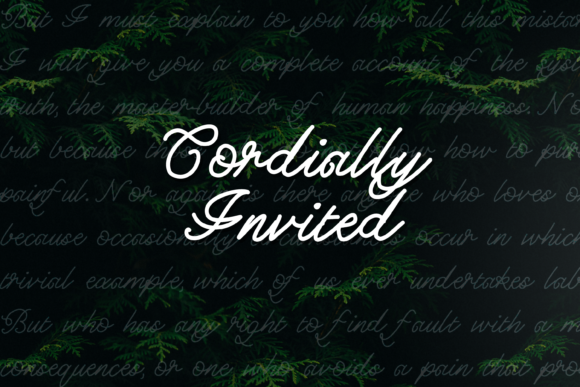
When the Perfect Font is Inviting
As a designer, there’s nothing quite like the thrill of bringing a creative idea to life. Whether it’s a wedding invitation, a birthday card, or a branding campaign, the right font can make all the difference. And sometimes, that perfect font is just a click away. Take, for example, the Cordially Invited Font – an elegant and beautiful handwritten font that’s sure to make your designs stand out.
This versatile font is perfect for a wide range of projects, from formal events to personal expressions. Its unique, handwritten style adds a touch of warmth and personality to any design. For designers, the Cordially Invited Font is a valuable asset, offering a level of sophistication and refinement that’s hard to find in other fonts.
Cordially Invited Font Key Features
- Unique Characteristics: Features elegant, cursive script with a touch of classic sophistication, making it perfect for formal invitations and special occasions.
- Kerning and Ligatures: Includes expertly crafted kerning and ligatures, ensuring seamless letter combinations and a polished, professional look.
Cordially Invited Font Review
Overall, I think the Cordially Invited Font is a charming and elegant choice for wedding invitations and other special occasions. ✨ Here are some aspects where it truly shines:
- Beautiful brush script style: The font’s unique, handwritten feel immediately conveys a sense of sophistication and romance.
- Customization options: The font comes in a range of styles and sizes, making it easy to tailor to your specific design needs.
- High-quality design: The font is well-designed and visually appealing, with a level of detail that makes it stand out.
- Limited character set: While the font is great for invitations, it may not be suitable for longer blocks of text, as the character set is somewhat limited.
- Not ideal for small text: Due to its brush script style, the font may become difficult to read at very small sizes.
- No bold or italic variants: While the font has a range of styles, it would be nice to have bold and italic variants for added versatility.
Overall, I think the Cordially Invited Font is a great choice for special occasions, but may not be suitable for all design needs.
The Cordially Invited font is ideal for formal invitations, wedding invitations, and other special occasion invitations. To get the most out of this font, use it sparingly and in combination with other elegant fonts to create a sophisticated look.